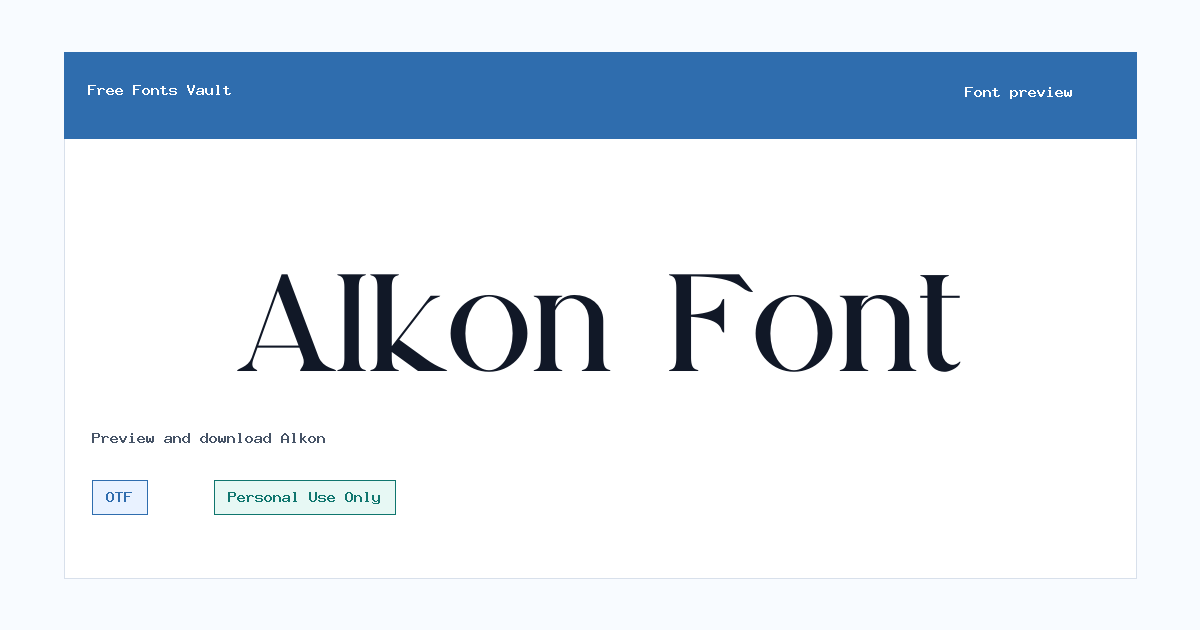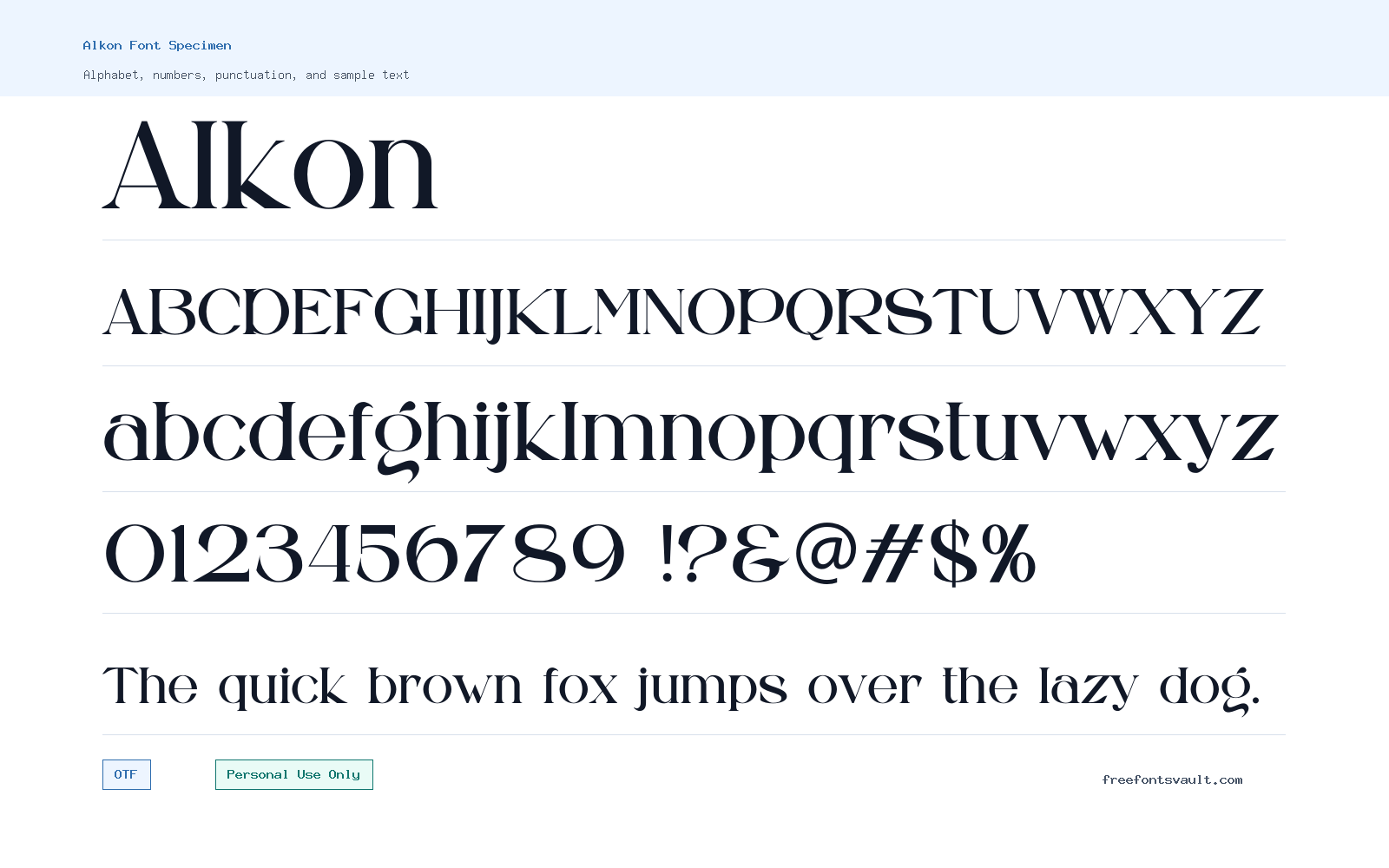
Alkon
Alkon font.
Alkon is a serif font family with one regular OTF file for personal-use projects. It is a better fit for short, visible text than for long reading, so use the preview box to test your exact words before downloading.
About Alkon Font
Alkon has a serif style, which gives it a more formal and textural feel than a plain sans serif. Because the available file is the regular weight, it works best when the design does not need a full range of bold, italic, or light styles. Try it first in titles, nameplates, quote graphics, invitations, mood boards, and other short pieces where the letter shapes can be seen clearly. If you are building a design that needs several hierarchy levels, Alkon can handle the main headline while another font covers body copy, labels, and captions.
For the best preview, type the exact words you plan to use rather than judging the font from the alphabet alone. Test uppercase, lowercase, numbers, punctuation, and any accented characters your project needs. Also check the font at the size you expect to use. A display-style serif can look attractive in a large heading but may become too busy or tight in small paragraphs. If the spacing feels crowded, increase letter spacing slightly or use fewer words. Alkon is most practical when the text is short, the background is clean, and the layout gives the letters enough room.
- Serif display direction: the family name and license label identify it as Alkon Serif Font, making it suitable for visitors looking for a serif option for headings, cards, posters, and personal graphics.
- Simple single-style setup: because only one regular style is present, it is easy to preview, compare, and use without sorting through multiple weights or alternate cuts.
- Best for short text checks: the font is worth testing with names, titles, initials, quotes, and small phrases where serif details remain visible.
- Personal title designs, quote cards, stationery drafts, scrapbook pages, mood boards, and social graphics where a serif look is wanted.
- Large headings or short display lines that do not require bold, italic, condensed, or extended companion styles.
- Creative previews for invitations, labels, cover concepts, and decorative text blocks, as long as the final use stays within the personal-use license.
- Pairing with a simpler sans serif for body text, captions, menus, or small interface details.
What kind of projects suit Alkon?
Alkon is most useful for short personal designs such as headings, quote images, invitations, name graphics, labels, and decorative title treatments. It is less ideal for long paragraphs unless your preview test shows comfortable reading at the chosen size.
Does Alkon include multiple weights or italic styles?
How should I test Alkon before using it?
Type your real text in the preview, check uppercase and lowercase, add punctuation and numbers, and view it at the size you will use. If it feels tight or hard to read, try a larger size, shorter wording, or a simpler companion font.